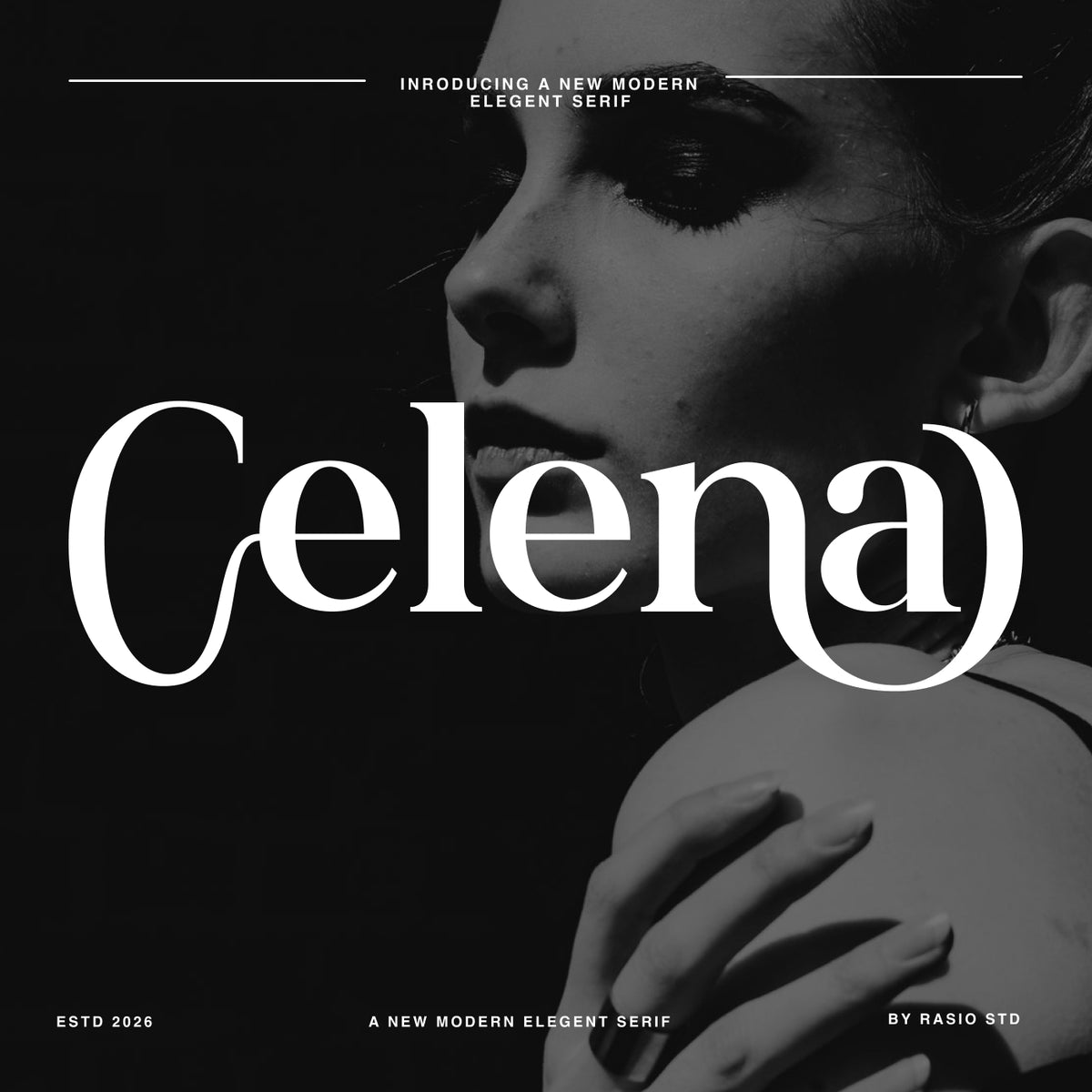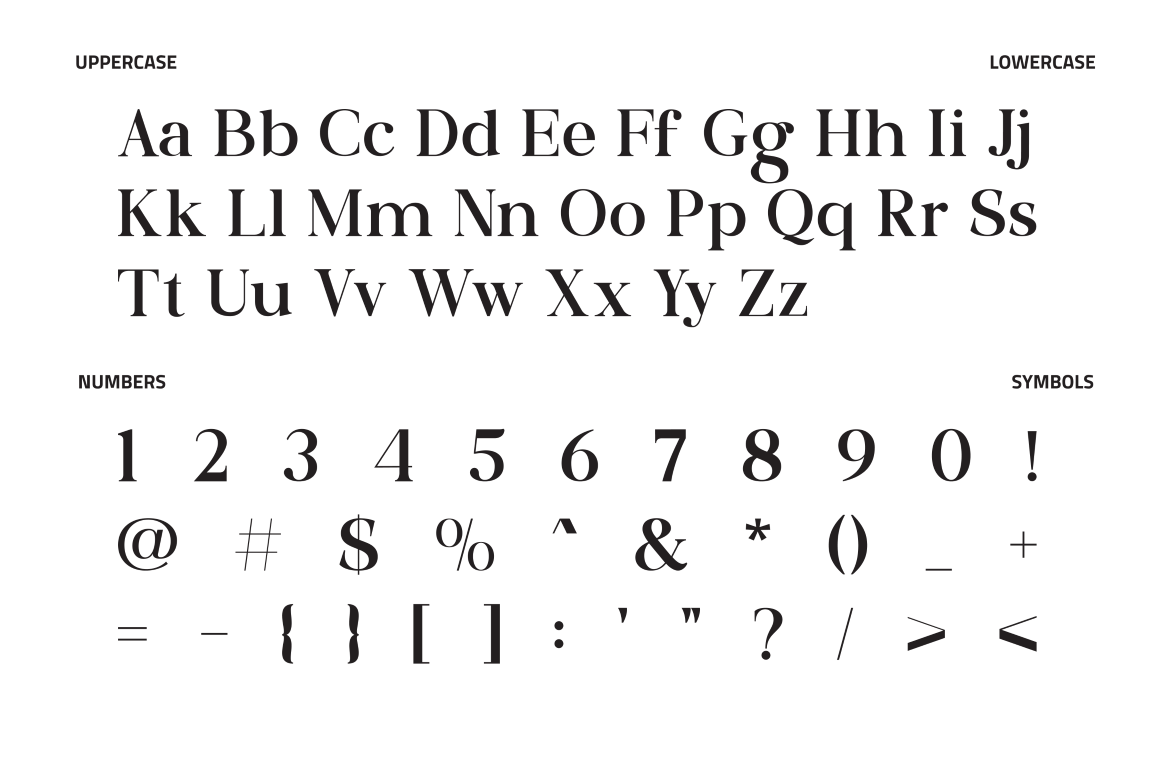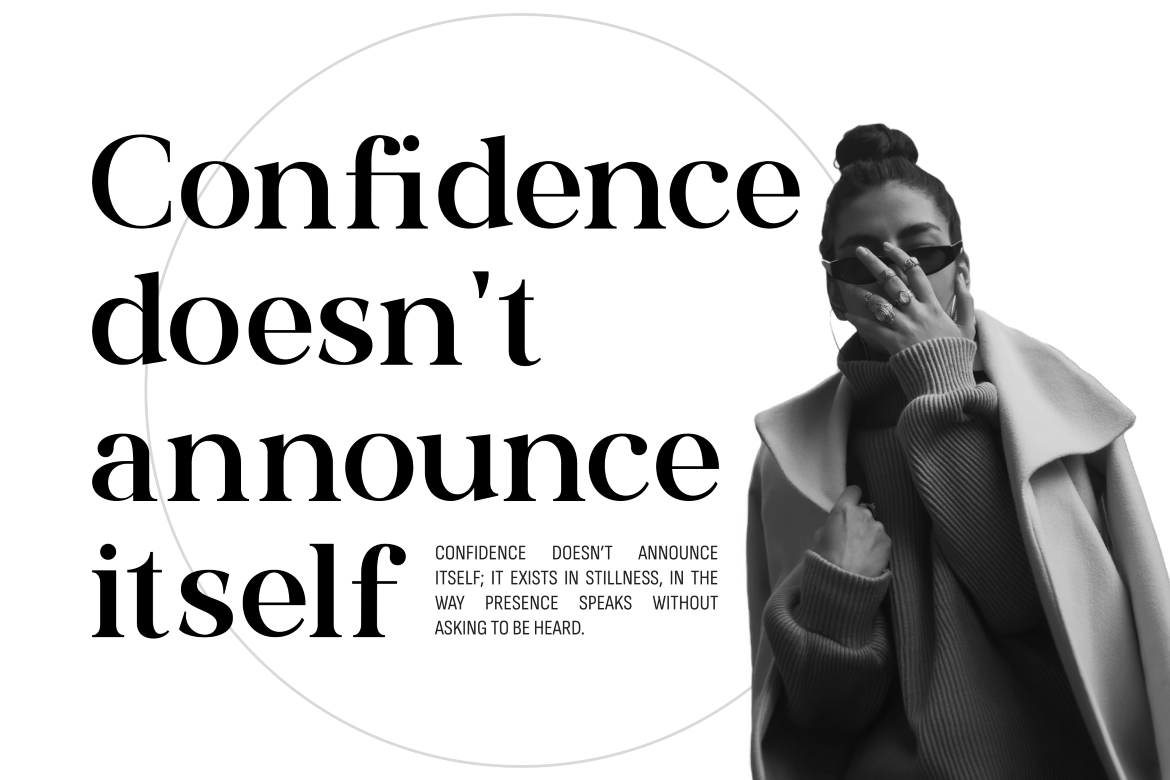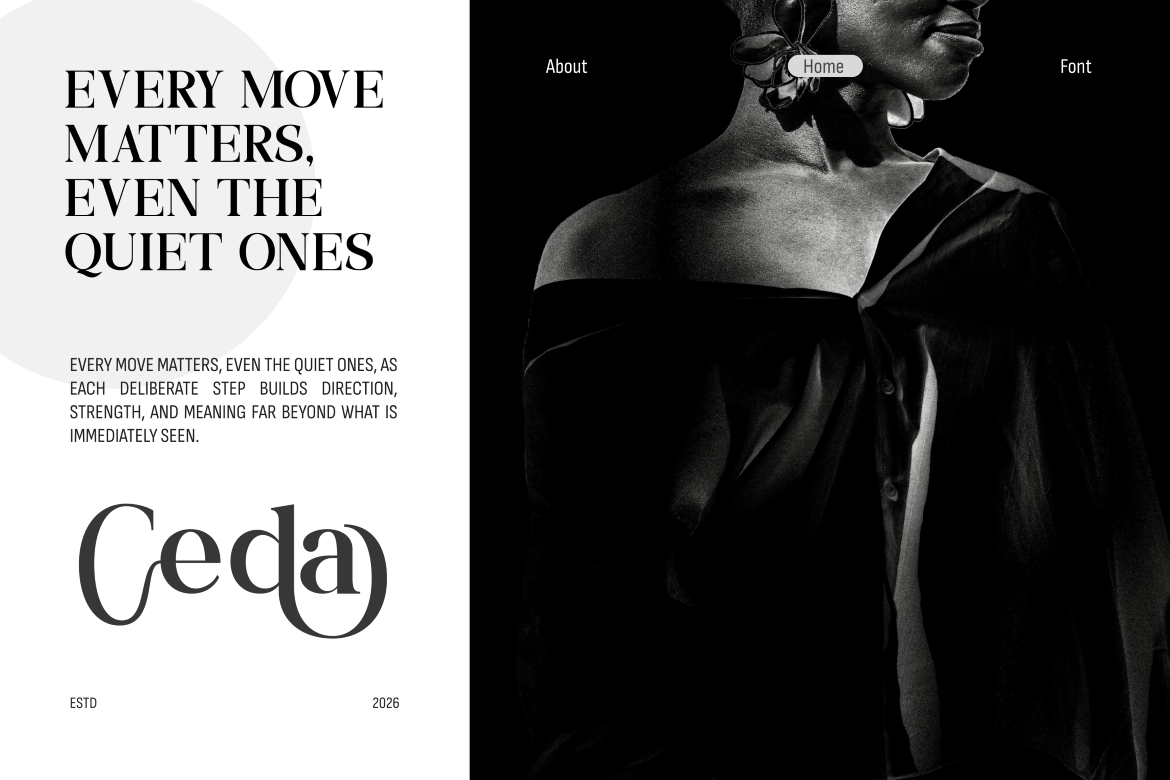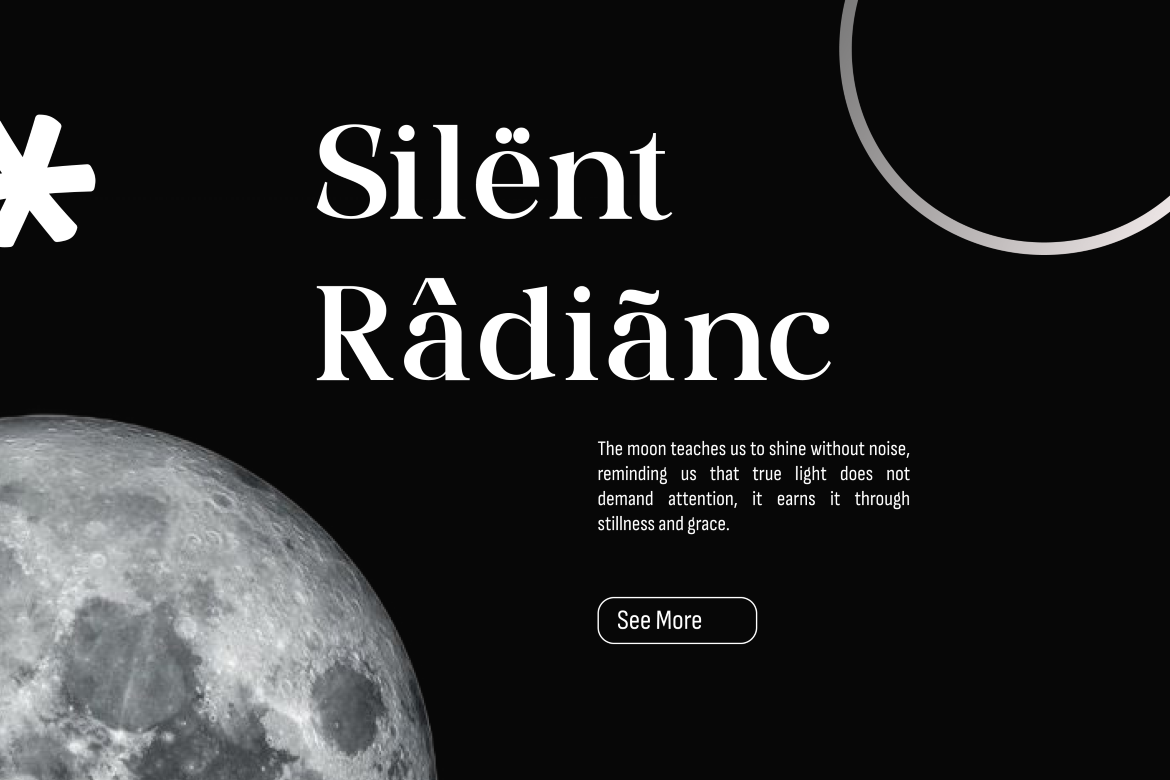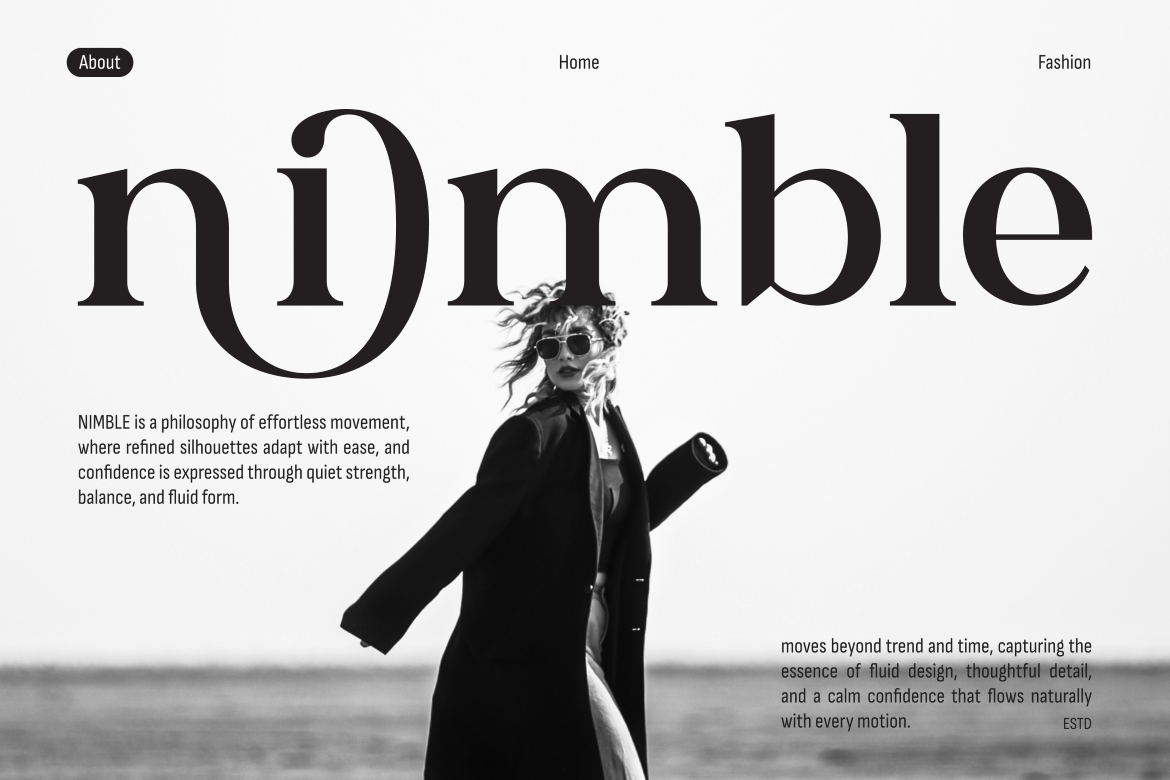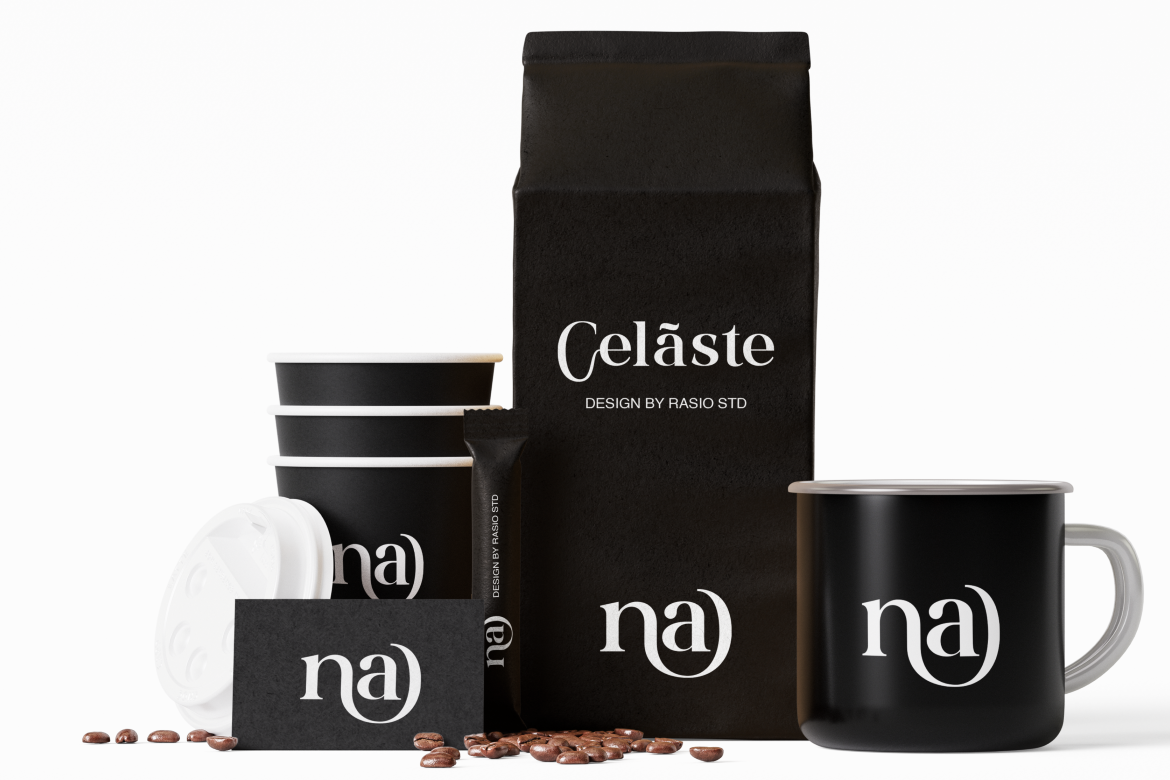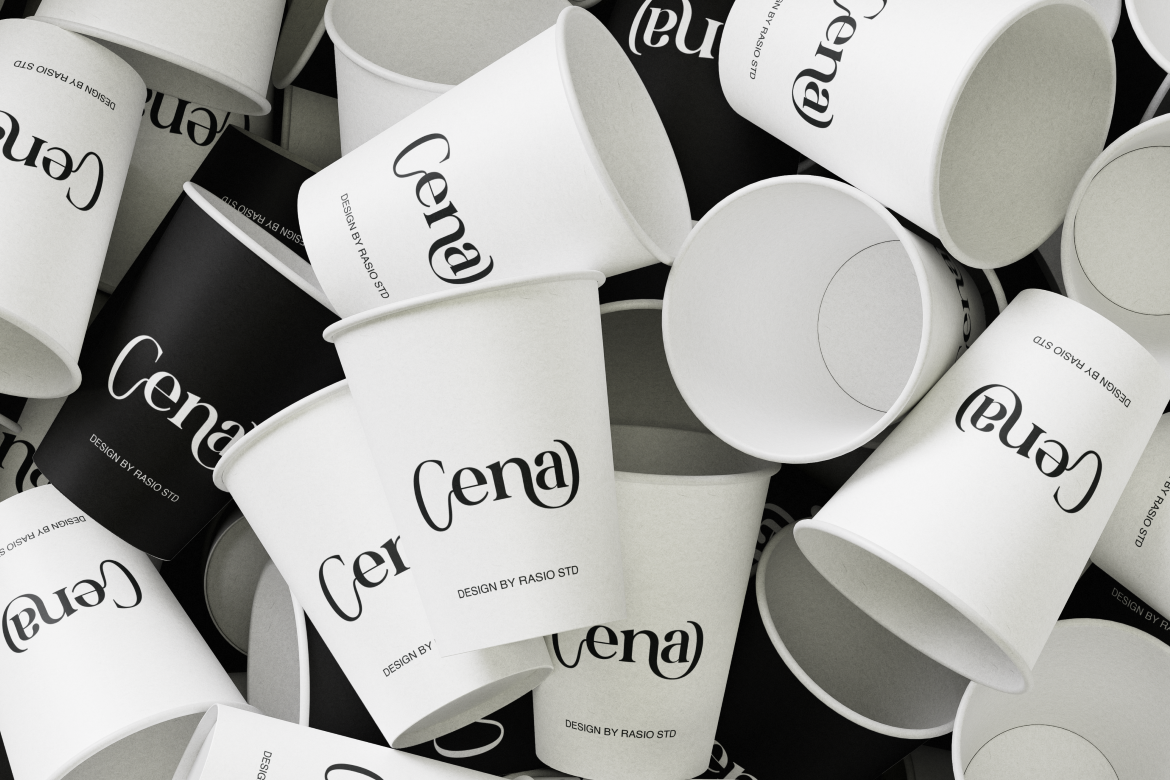
Celena Modern Elegant Serif Font
Celena is a modern editorial serif typeface crafted with refined proportions, graceful curves, and high-contrast strokes that express confidence and sophistication. The set includes uppercase, lowercase, numerals, punctuation, and stylistic characters designed for polished layouts and premium typography. Delivered in clean, ready-to-use font files for branding, publishing, and luxury visual identities.
Relevance and Use Cases is perfect for luxury branding systems, fashion campaigns, editorials, magazines, beauty products, boutique packaging, modern logos, photography layouts, lifestyle content, and any project that requires an elegant, confident, and premium typographic presence.
Celena is a modern serif typeface featuring high-contrast strokes, uppercase and lowercase characters, numerals, punctuation, ligatures, and stylistic alternates. It is provided in OTF, TTF, and WOFF formats with multilingual support.